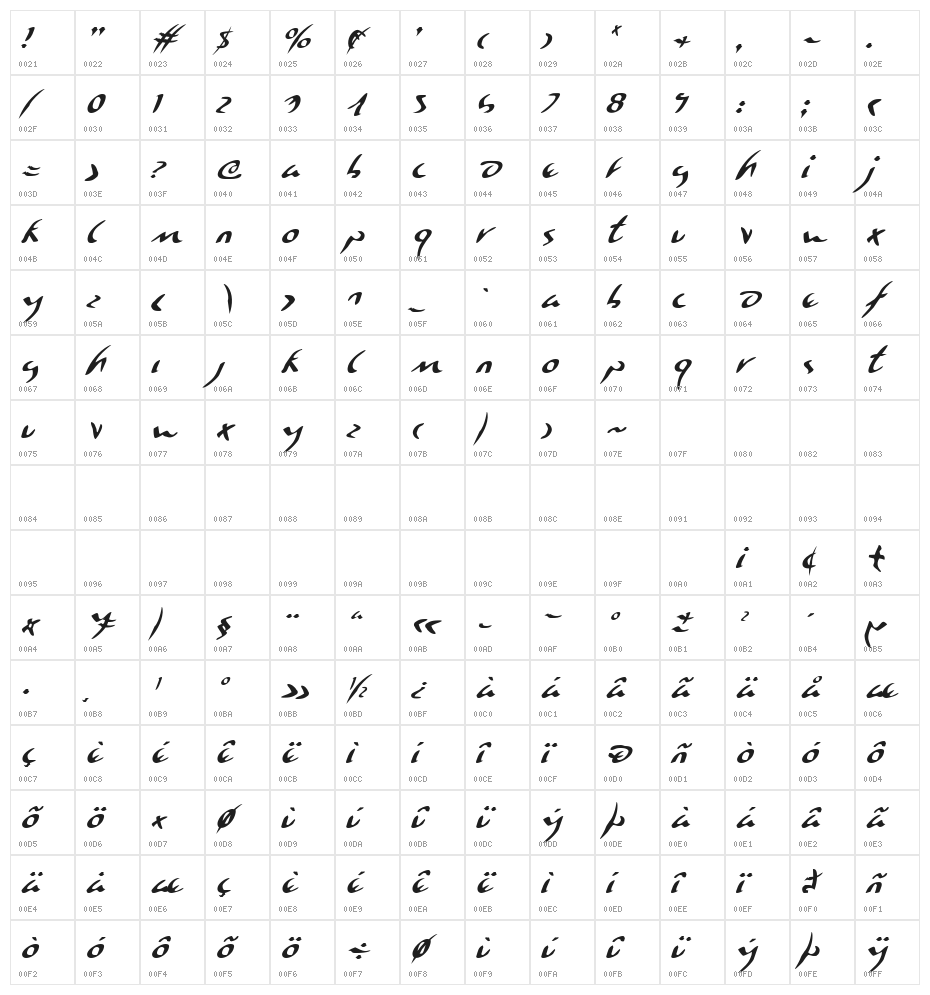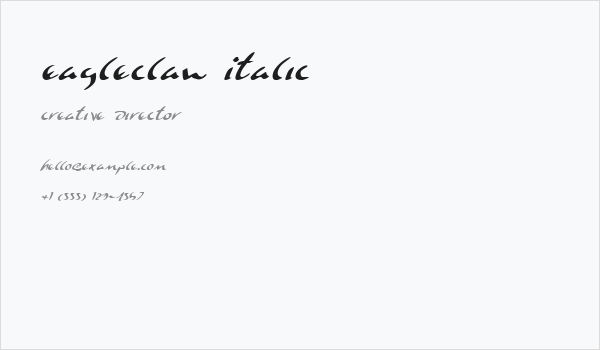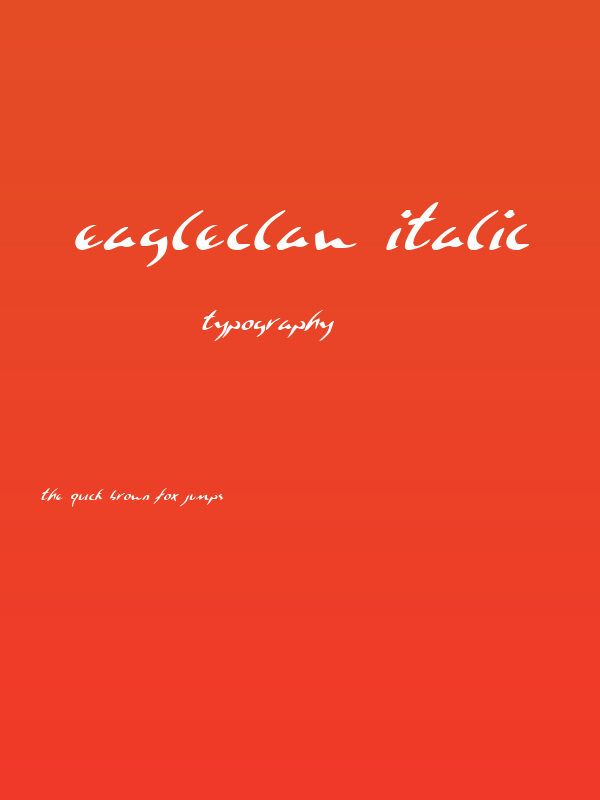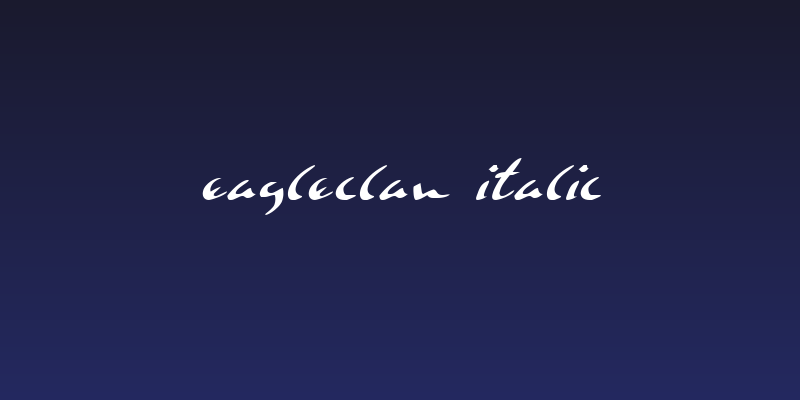
Eagleclaw Italic Font
Eagleclaw Italic Description
This font exudes a dynamic and energetic style, characterized by its sharp, angular strokes and fluid, cursive form. The letters are slanted, giving a sense of motion and speed, reminiscent of calligraphic handwriting. The uppercase and lowercase letters maintain a consistent flow, with exaggerated curves and pointed terminals that add a dramatic flair. The numbers and special characters follow the same stylistic cues, ensuring a cohesive look across all glyphs. This font's bold presence makes it suitable for impactful designs where a strong, artistic expression is desired.
Proposed ProjectsIdeal for branding, posters, and artistic projects that require a bold, expressive touch.